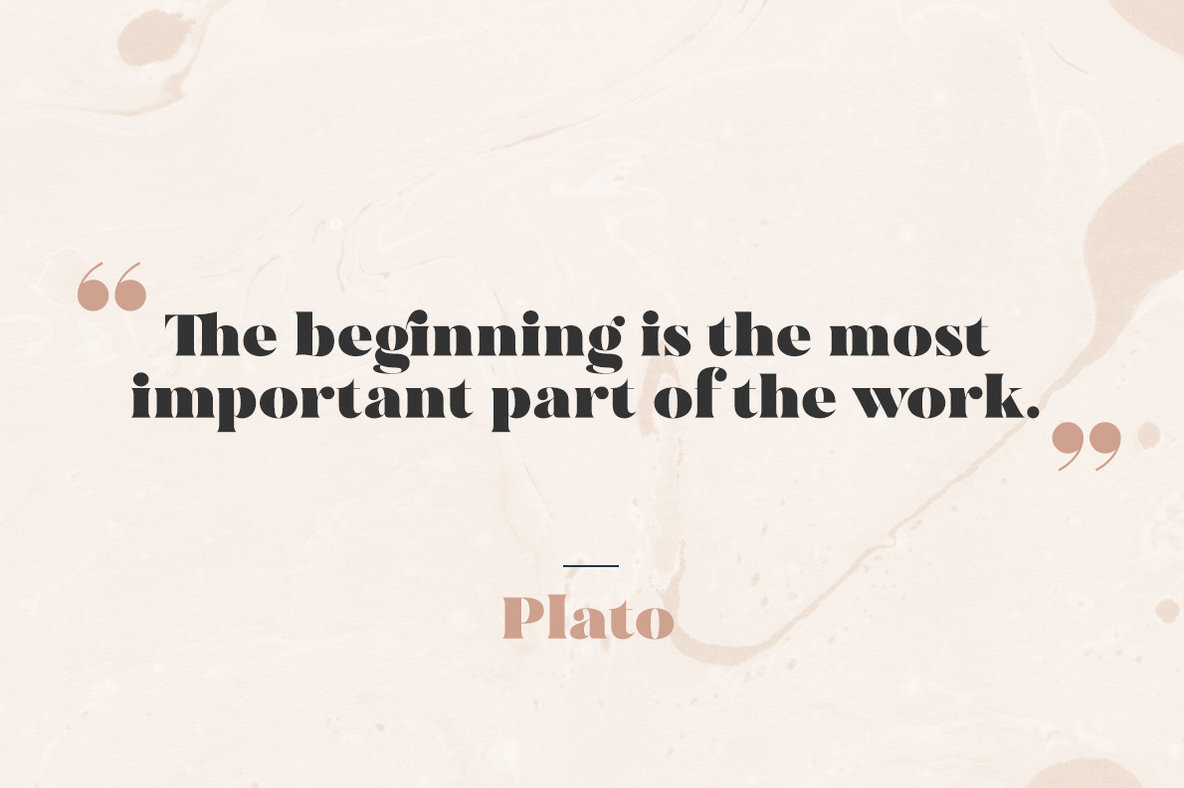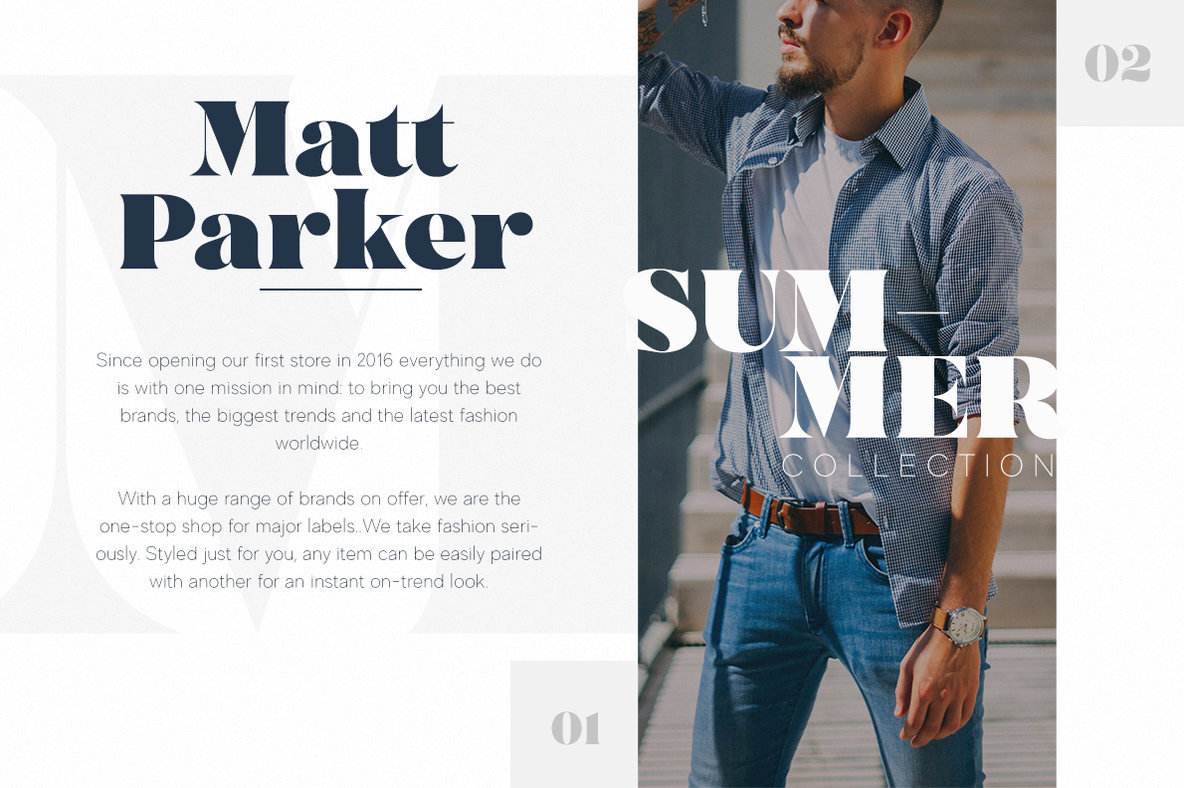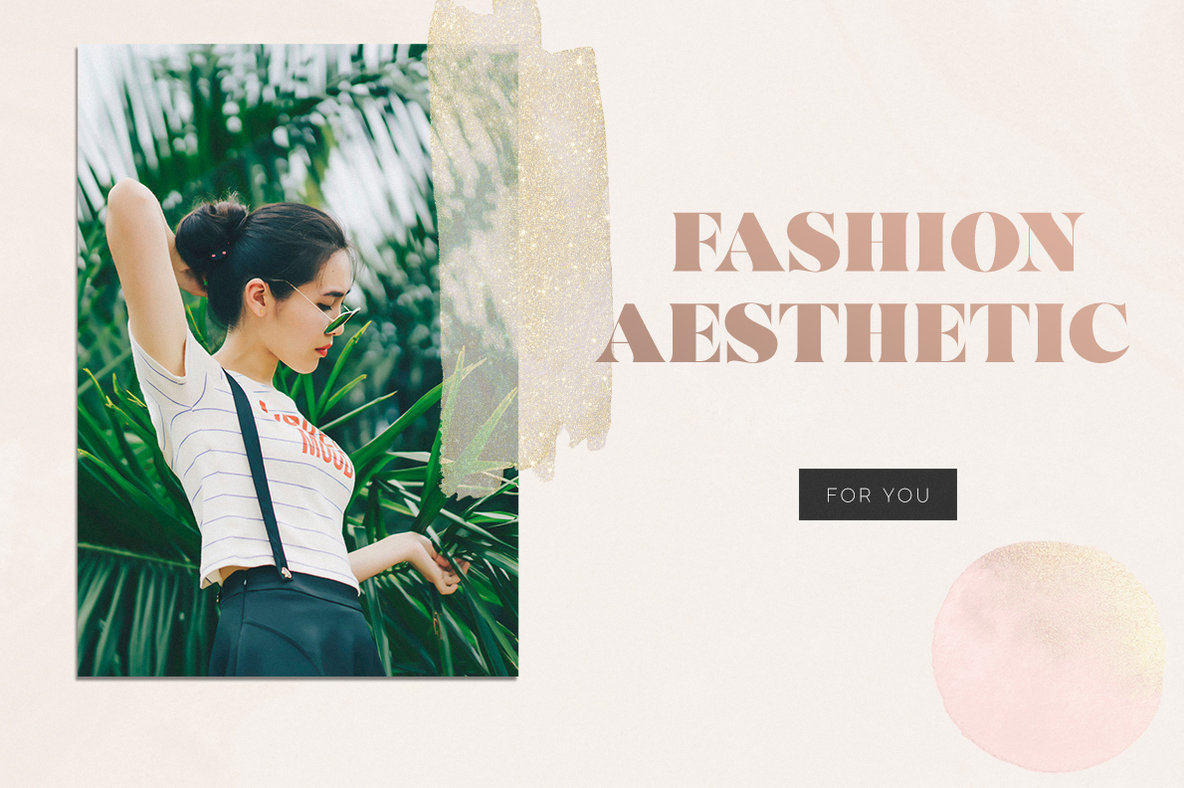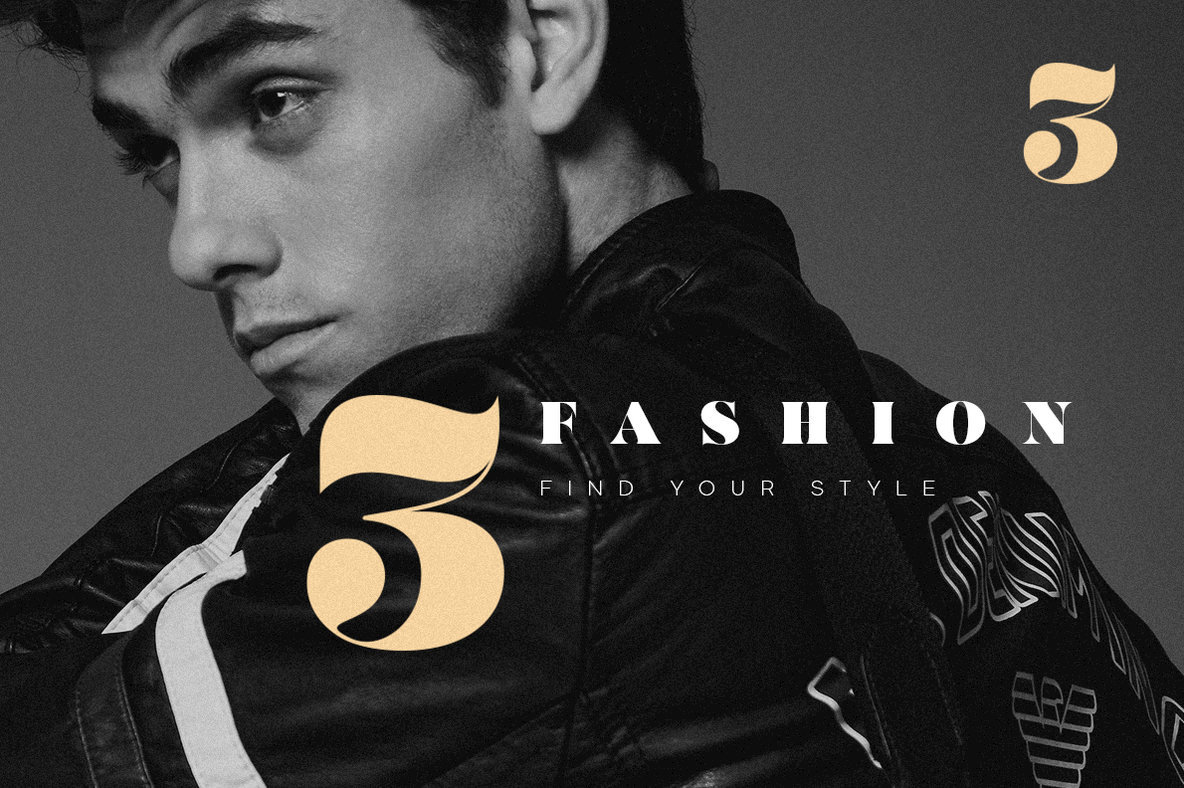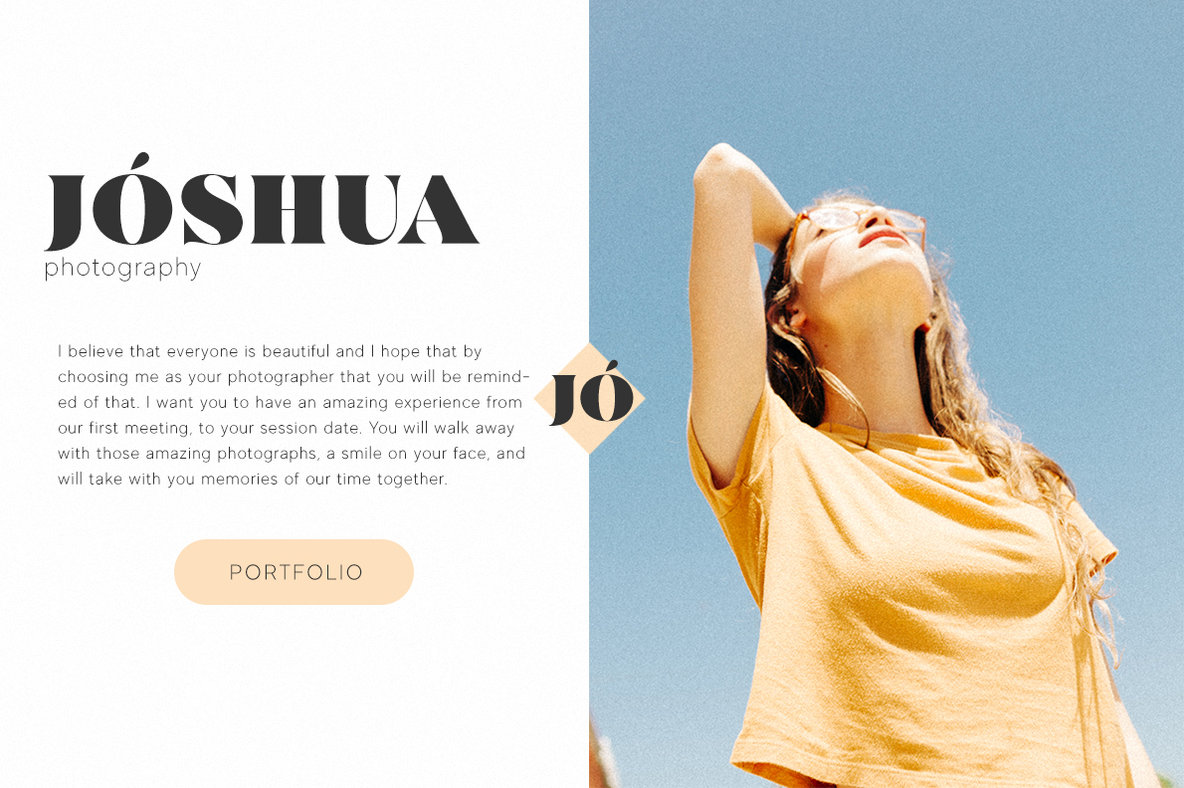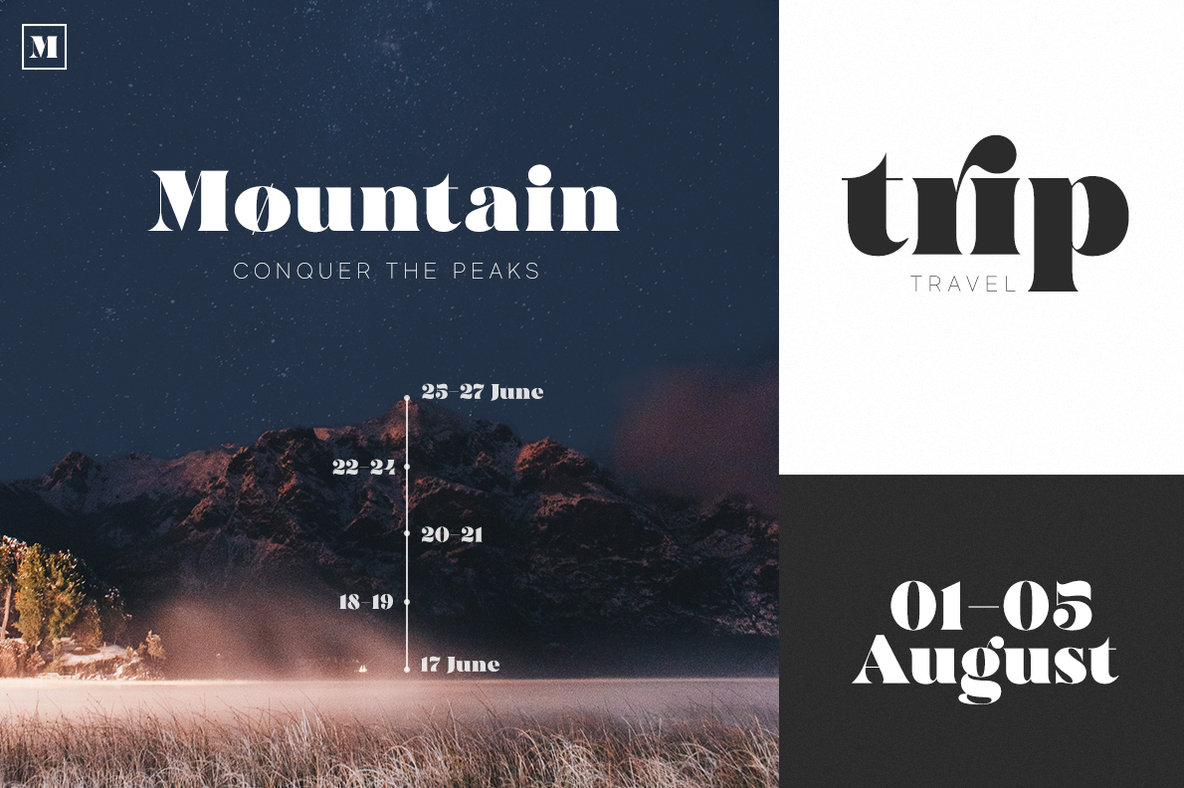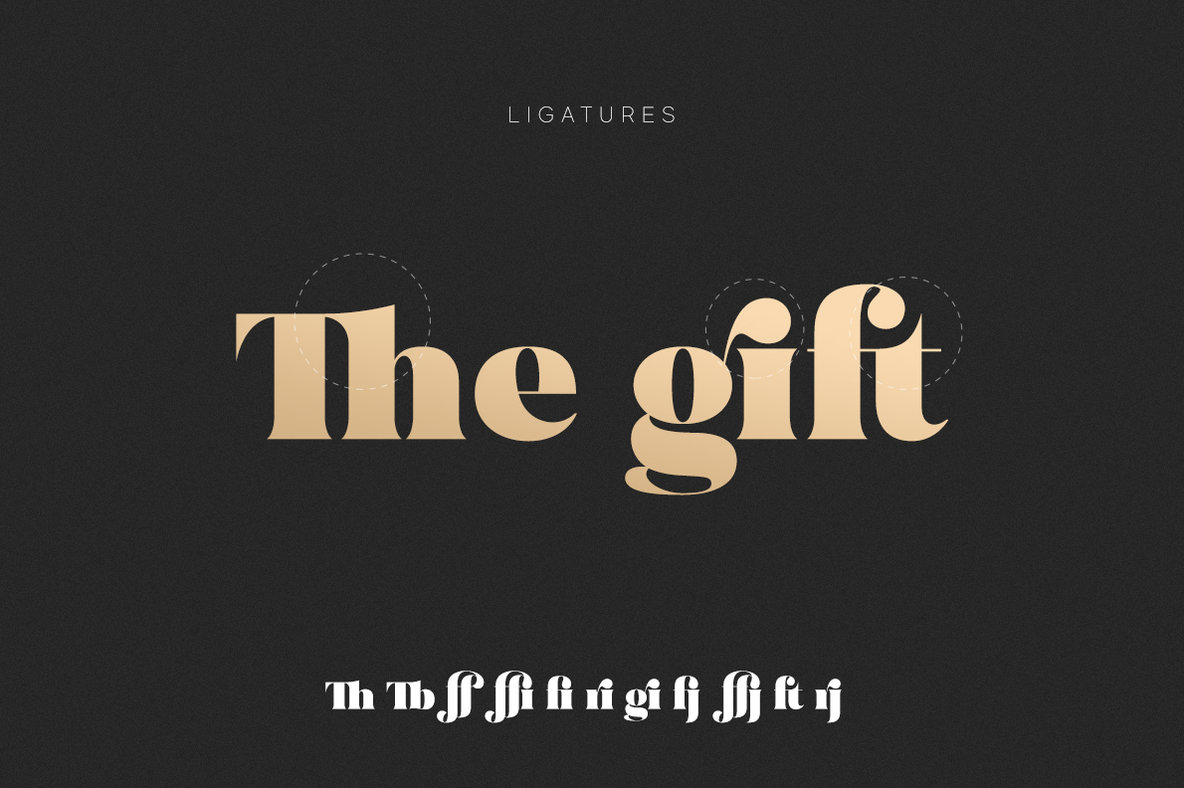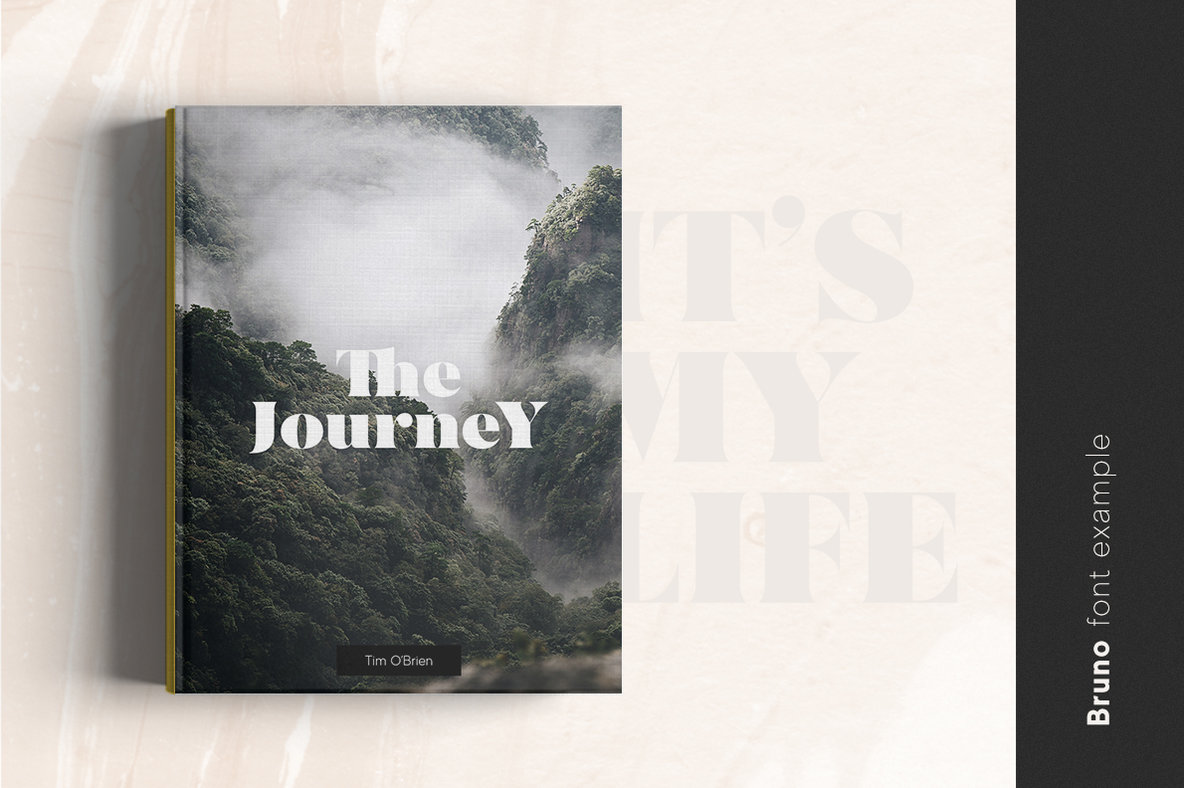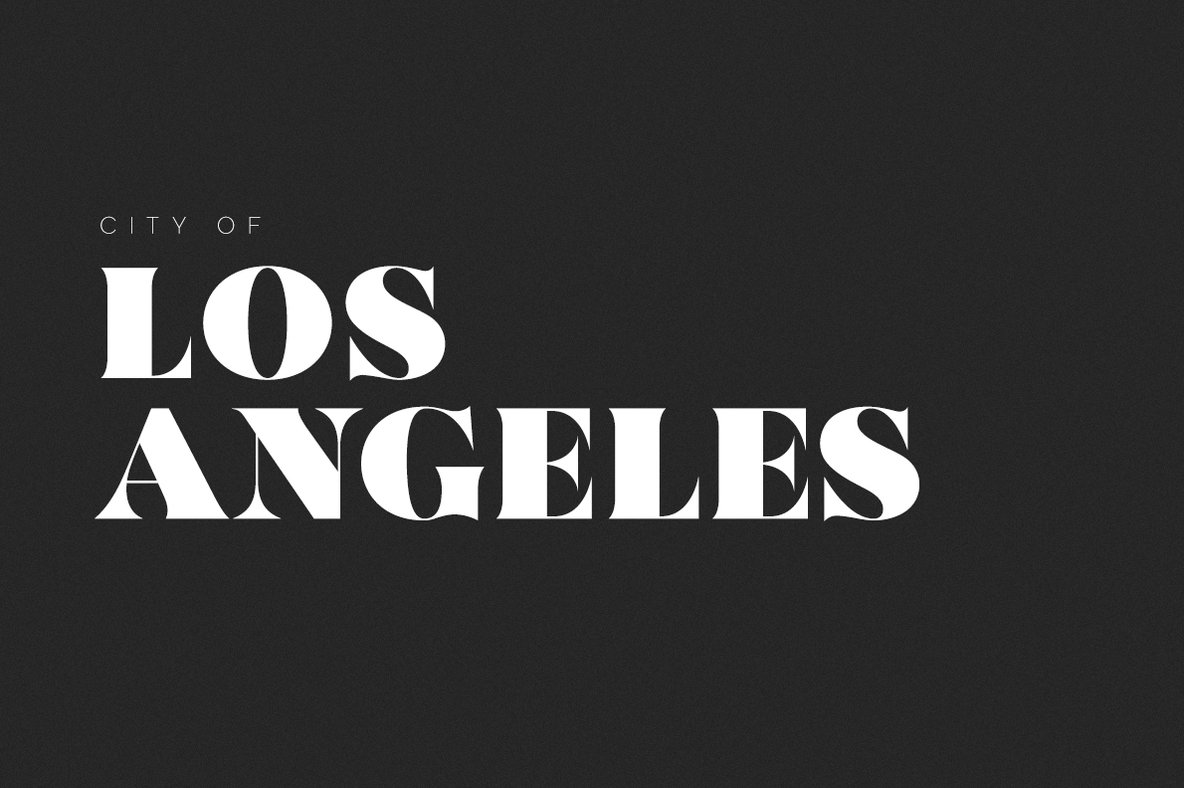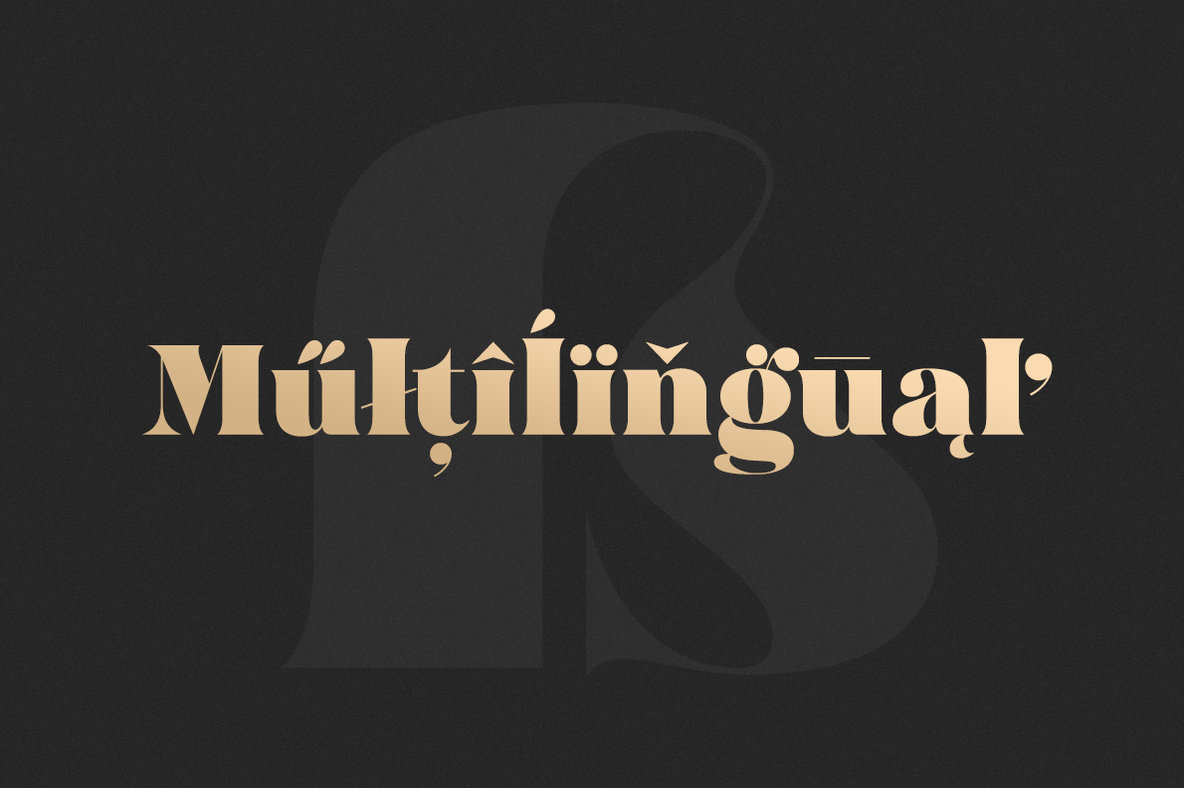
MADE Bruno Font
MADE Bruno
MADE Bruno is a modern classic serif typeface with an individual approach in every single letter.
The Bruno will perfect for many project: fashion, magazines, logo, branding, photography, wedding invitations, quotes, blog header, poster, advertisements, etc.